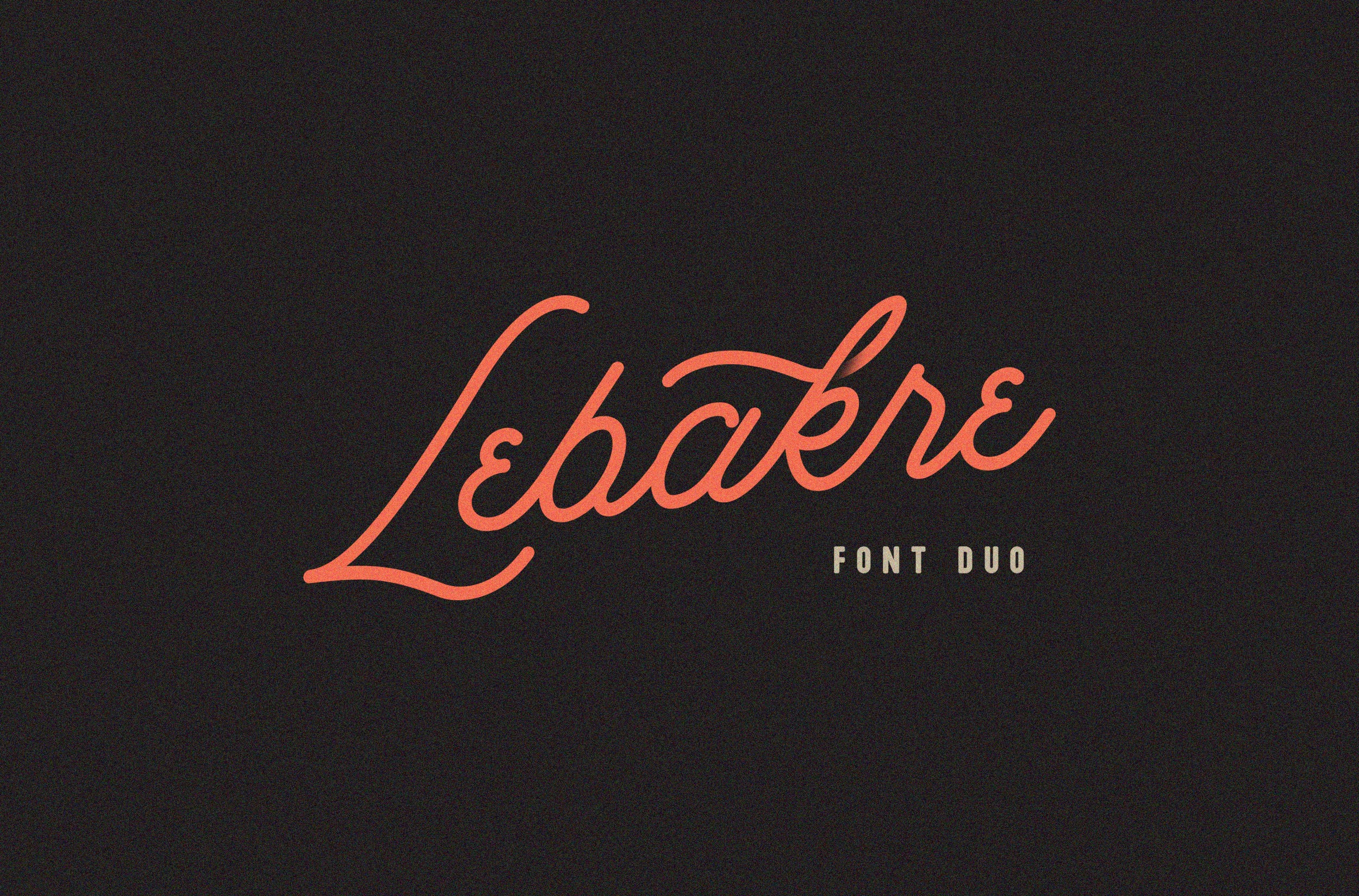
Lebakre Font Duo
Every journey is a history, and i must go when adventure calls.
Started from my passion in traveling, its the implementation of the live authentic things and hipster things from the hastag of your Instagram. Please welcome,
Lebakre font duo, a double clean bold and monoline script plus and a casual sans serif typeface that never get any wrong for your vintage branding, logo, adventure, fashion things, hipster generator, quotes, posters, and many more
Lebakre Script : A monoline round script with various style with implementation of hand lettering things. Uppercase, Lowercase, Numbers and Puncts, Stylistic Alternates, and Ligature are available in this type. So many variation and possibilities for your design projects.
Lebakre Sans : A round bold sans serif font to make a good pairs for Lebakre Script. its an All Caps style, the lowercase are a lil' bit smaller than the uppercase, bring another vibe to your design by combining them for the various style.
And so, the adventure begins.
GO EXPLORE!